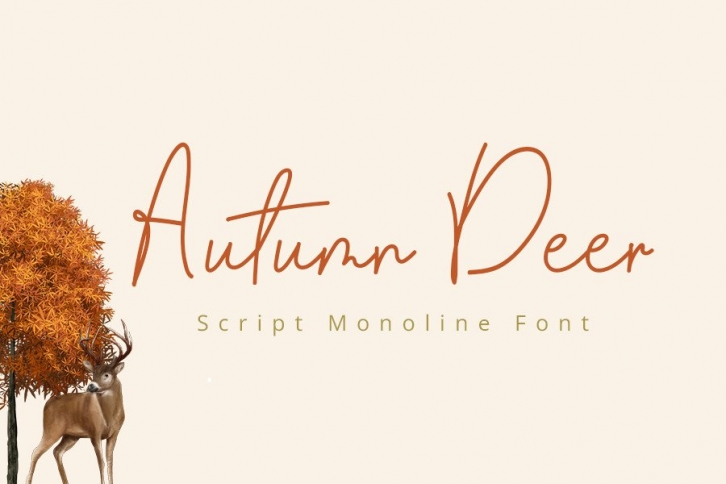
Autumn Deer is a beautiful script font with an alluring look. The thin and softly curved characters give this typeface a unique charm. You can use it for headlines, posters, covers, crafting projects, and many more!